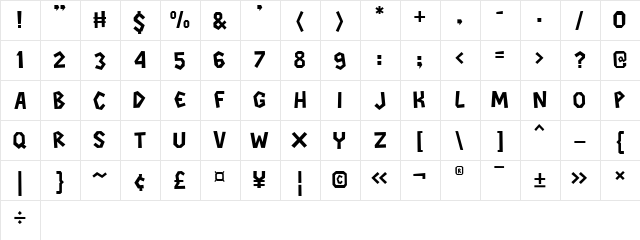
Dinotype Regular
| Foundry | HoPoYa Studio |
| Designer | Mahmud Fajar Rosyadi |
Design Context for Dinotype Typeface
Dinotype offers clean, dependable letterforms without strong stylistic allegiance, making it a practical choice for designers who need flexibility.